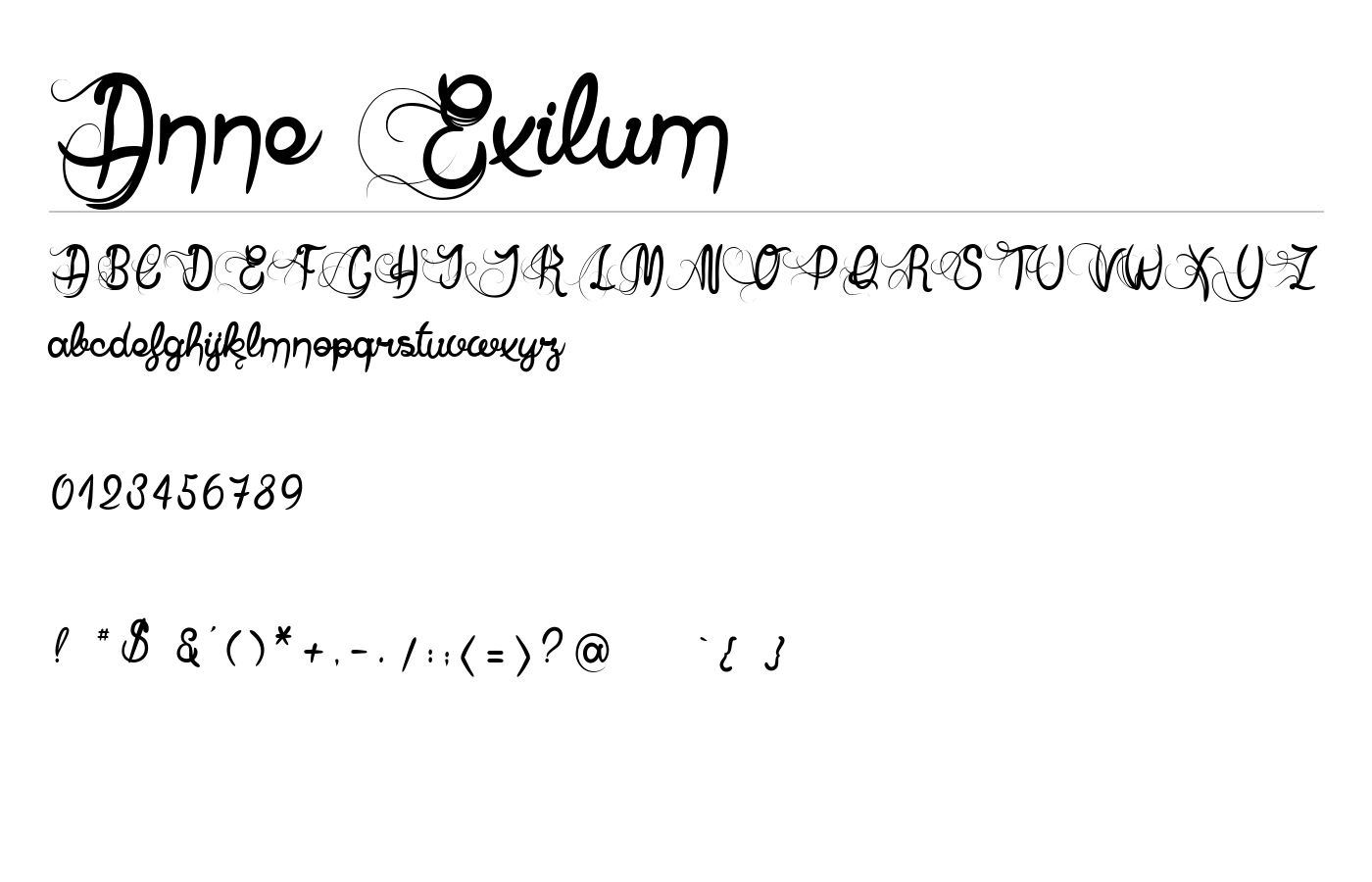
Anne Exilum is a whimsical script font with elegant, flowing flourishes that give it a decorative and artistic feel. Its thin, varied strokes and unique letterforms make it ideal for creative, feminine, or vintage-inspired branding, invitations, and headlines where a touch of sophistication and personality is desired. This font shines in designs that seek to convey charm and graceful flair with a handcrafted, delicate style.
Anne Exilum Font
About Anne Exilum Font
| Font family | Anne Exilum Font |